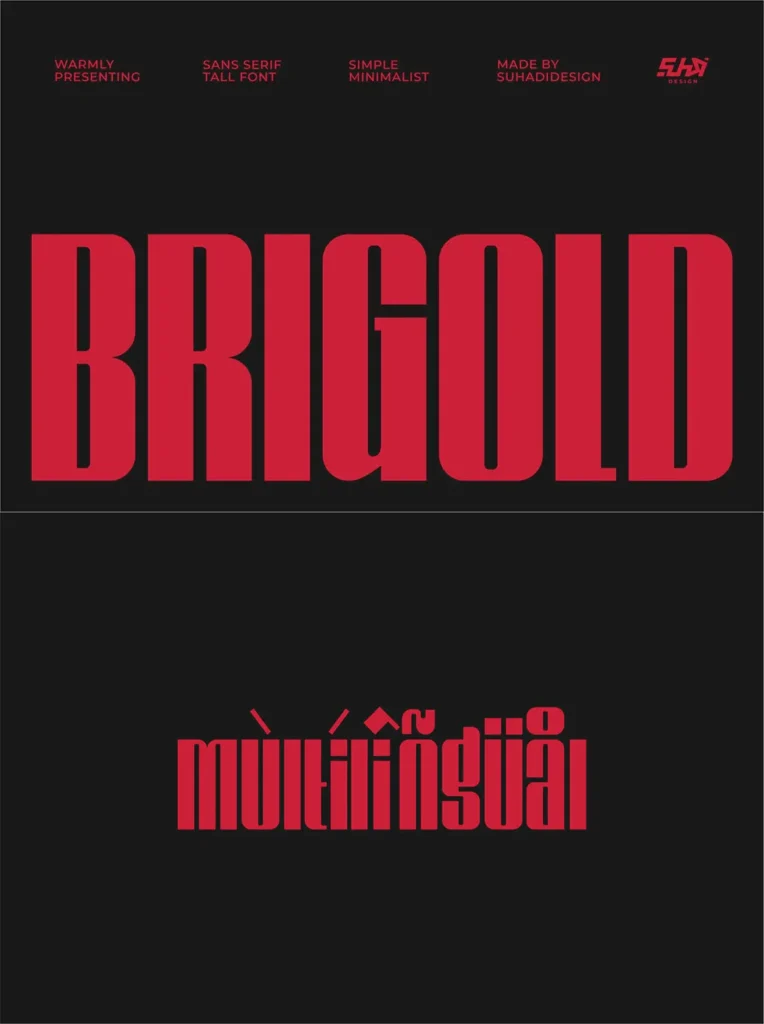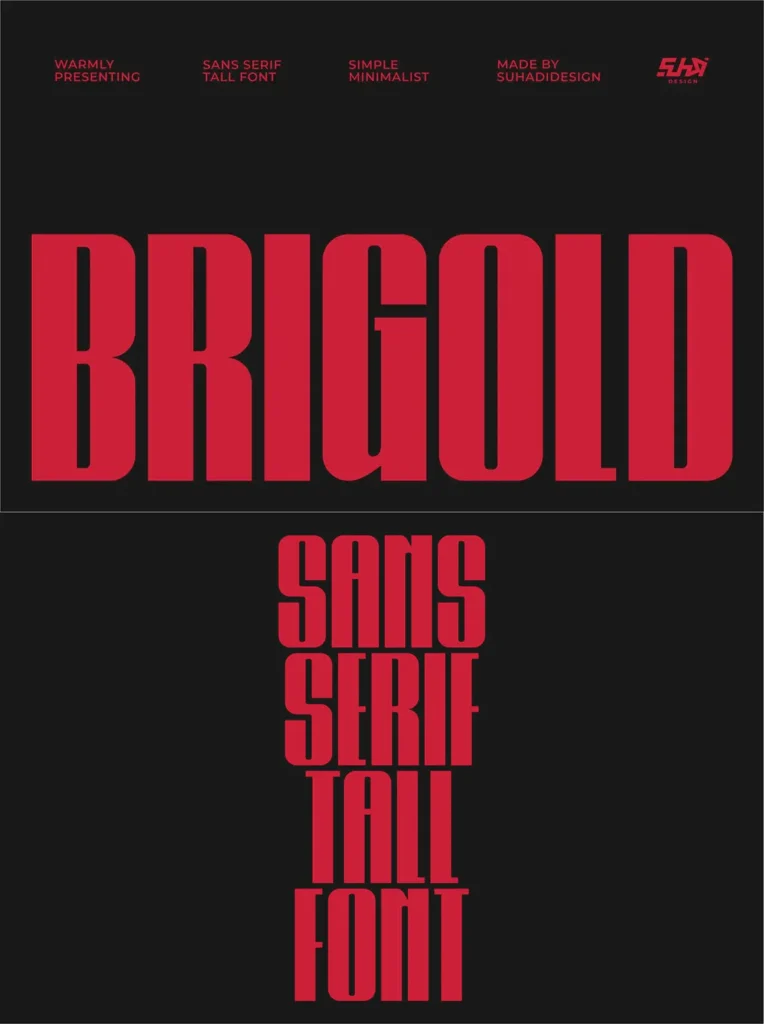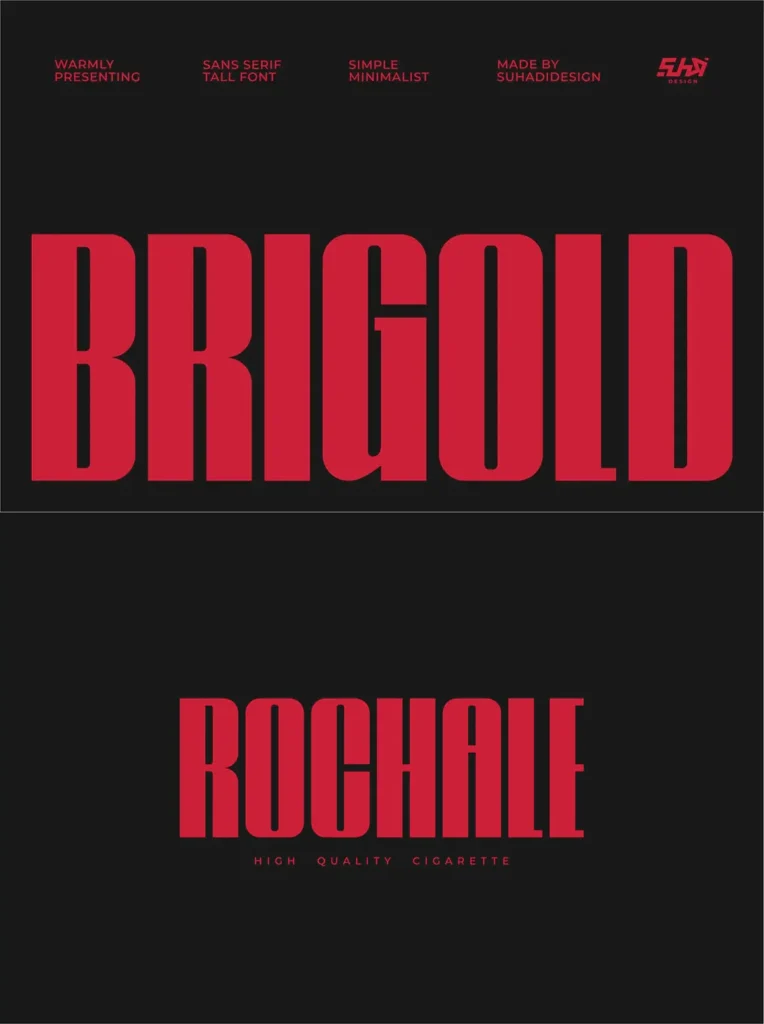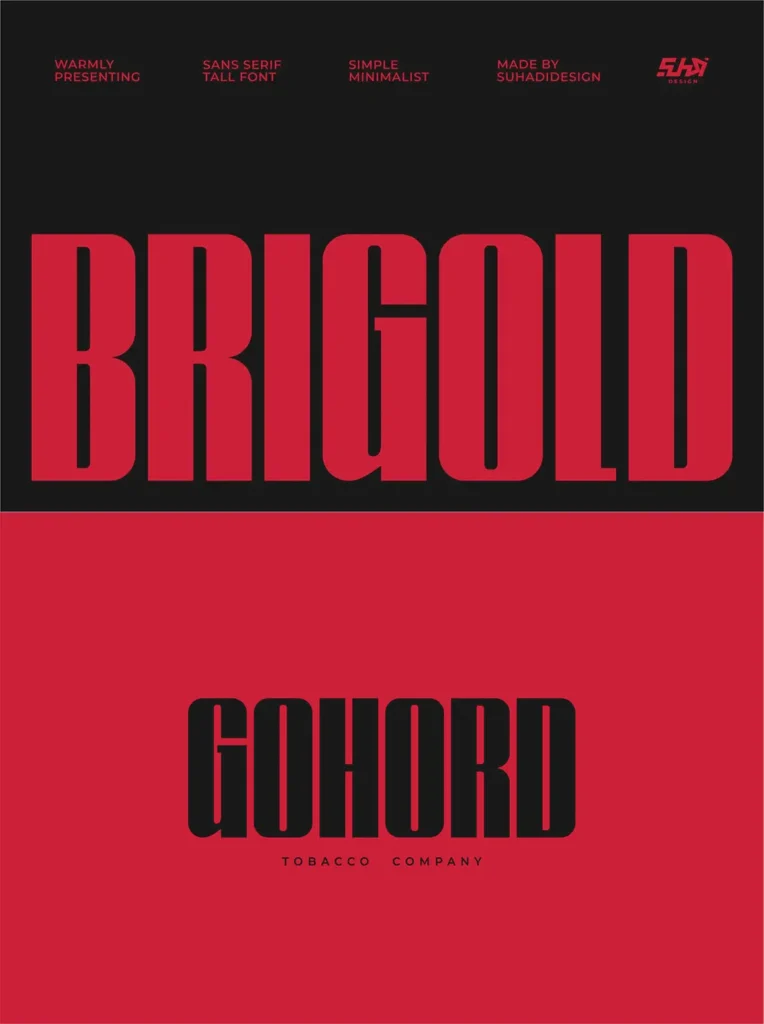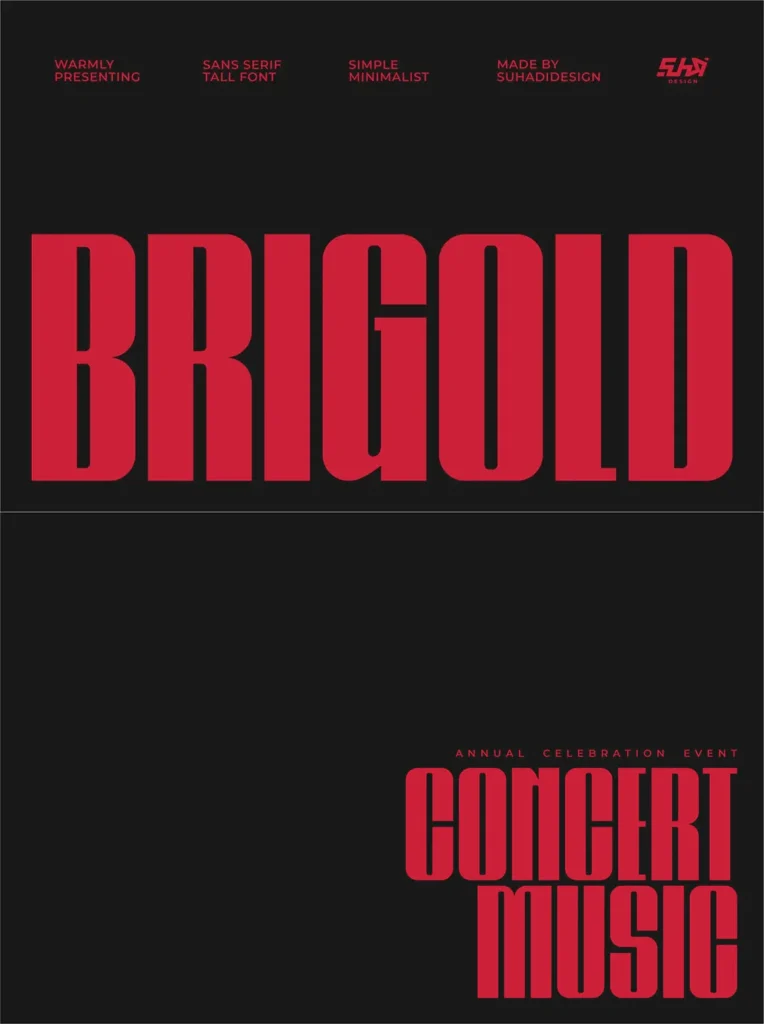
Brigold – Tall Font — Slim Height, Sharp Style
Hey ladies and gentlemen! Brigold – Tall Font was created in response to market demand for an attractive, tall, and bold sans serif font. Brigold brings a stylish sans serif voice with a distinct look and an elegant thin weight that has become a market favorite. Its character stays elegant, classy, modern, stylish, contemporary, and easy to use.
Brigold is a great choice for magazines, book covers, shopping bags, packaging, logos, labels, fashion, posters, banners, bags, brand names, branding, quotes, and other projects. The Brigold font style helps make the design process enjoyable while supporting cool, polished results. Stay tuned for the latest information on font creation.
Font Features
Capital Letters
Lowercase Letters
Multilingual Support
Numbers and Punctuation